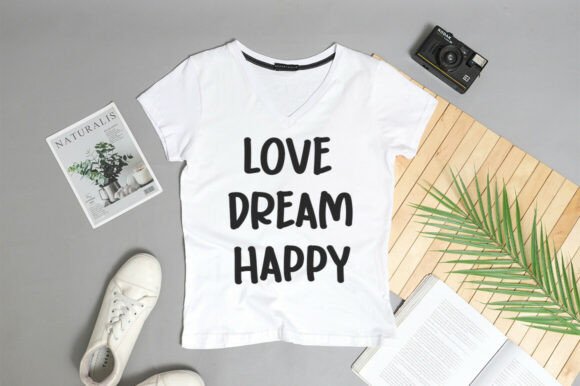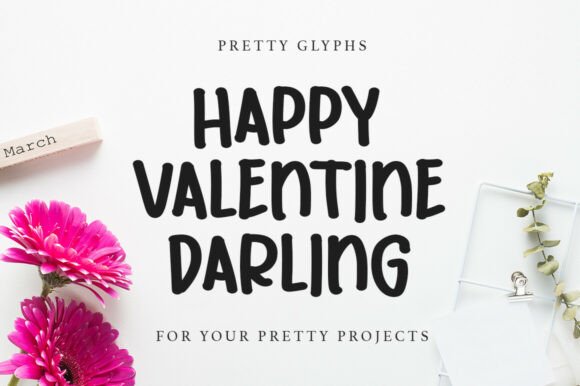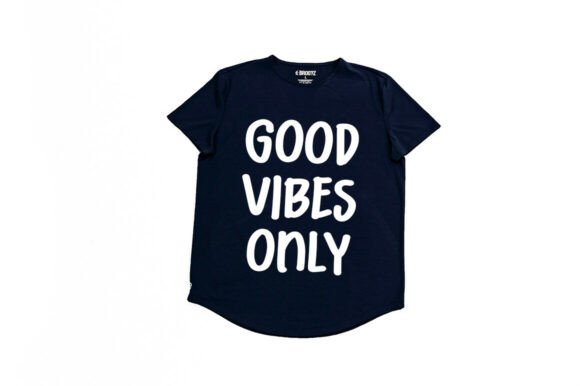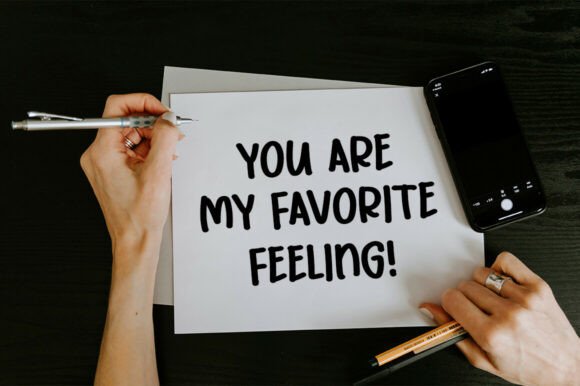
The Bounce Brush Font: A Game-Changer for Creative Projects
I’ll never forget the time I was working on a branding project for a local coffee shop. My client wanted a logo that felt warm, inviting, and uniquely handcrafted. I spent hours scouring font libraries, but nothing seemed quite right. That was until I stumbled upon the Bounce Brush Font. With its bold, expressive strokes and organic textures, it was like a breath of fresh air. I knew immediately that it was the perfect fit for the project.
So, what makes the Bounce Brush Font so special? Let’s dive into the details.
- ✨ Authentic Hand-Painted Feel: Each letter flows freely, giving your designs a unique, handcrafted personality.
- ✅ Modern and Playful: This font has a youthful energy that’s perfect for brands and projects that want to feel fresh and approachable.
- 💫 Versatile: From logos and branding to social media posts and t-shirt designs, Bounce Brush Font can be used in a wide range of creative projects.
- 🎨 Organic Textures: The natural brush strokes and textures add depth and visual interest to any design.
While Bounce Brush Font is an amazing addition to any design toolkit, there are a few things to keep in mind:
- 🤔 Legibility at Small Sizes: Like many handwritten fonts, Bounce Brush Font can be tricky to read at very small sizes. It’s best used at larger sizes where its unique personality can shine.
- ⚠️ Limited Formality: This font is playful and expressive, which means it might not be the best fit for very formal or corporate projects.
The Designer Inspiration Behind Bounce Brush Font
While the true story behind Bounce Brush Font might be a mystery, it’s easy to imagine a designer who loves hand-painted signs and street art. Perhaps they wanted to capture the energy and spontaneity of a brush stroke in a digital font. Whatever the inspiration, the result is a font that’s both modern and timeless.
Q: What kind of projects is Bounce Brush Font best suited for?
A: Bounce Brush Font is perfect for creative projects that need a personal touch, such as logos, branding, social media posts, t-shirt designs, invitations, and greeting cards.